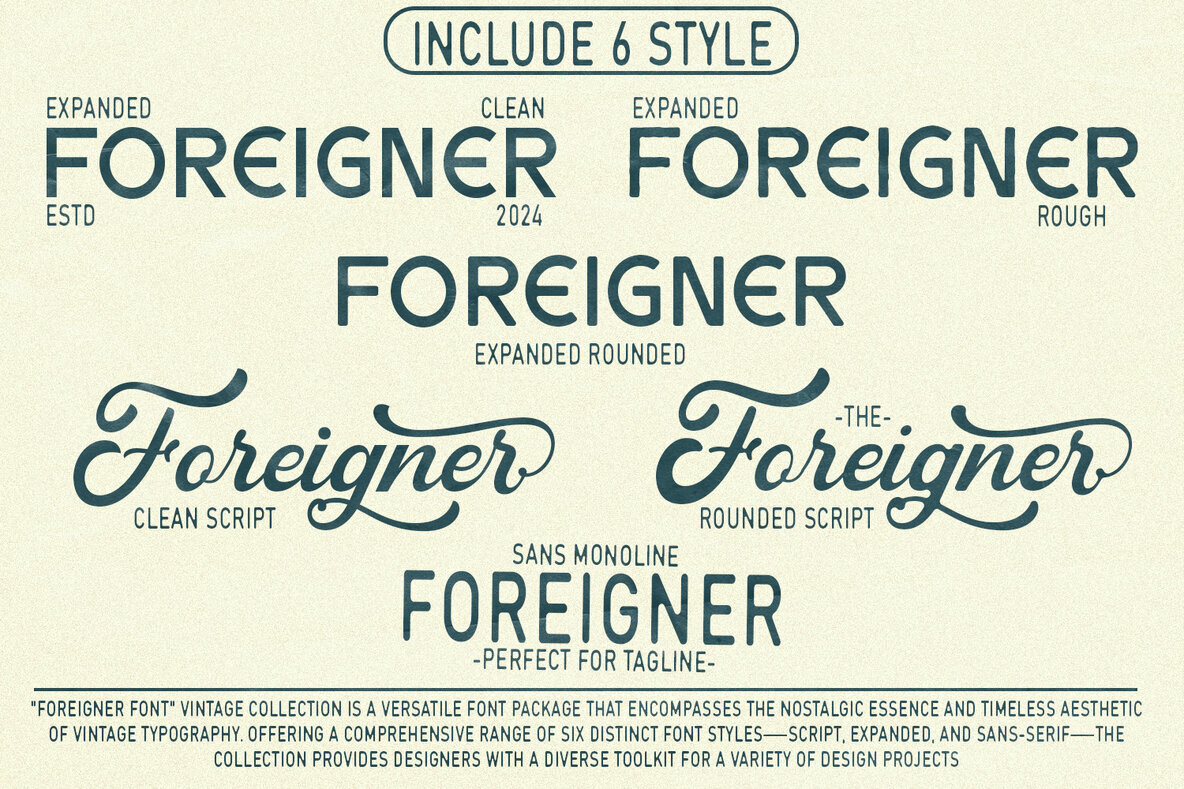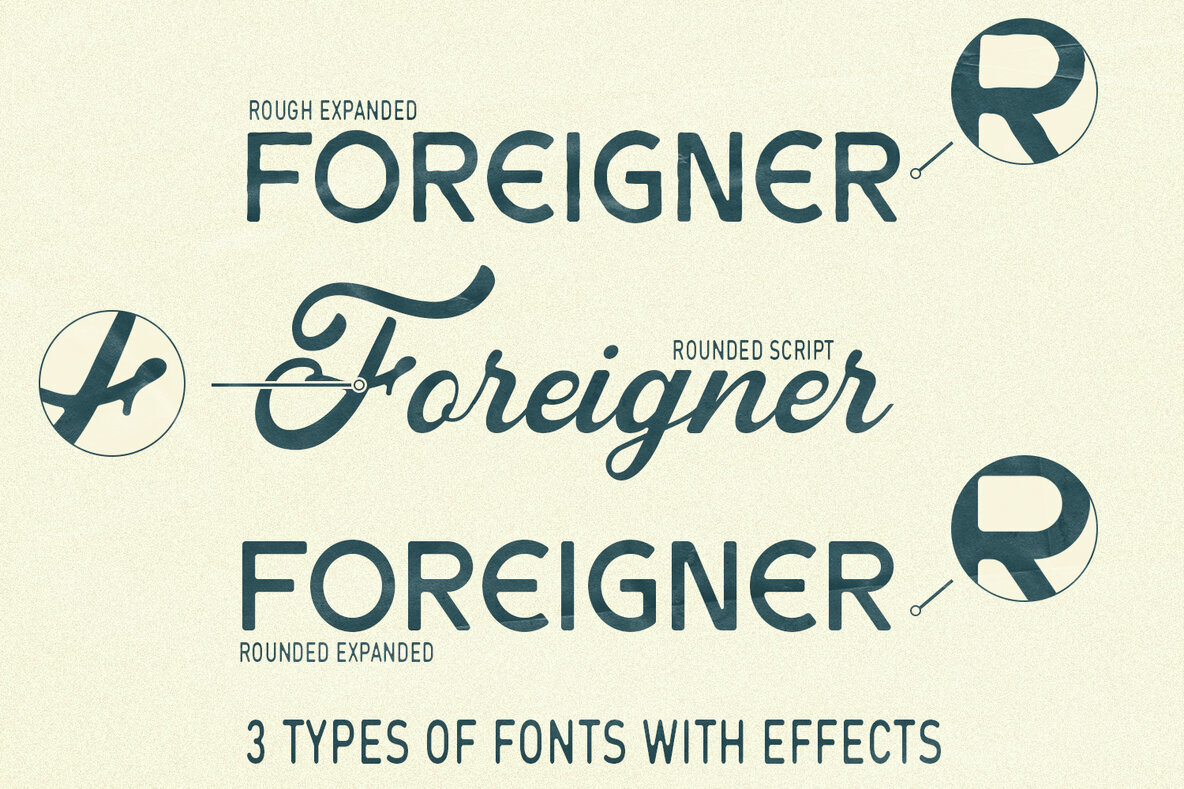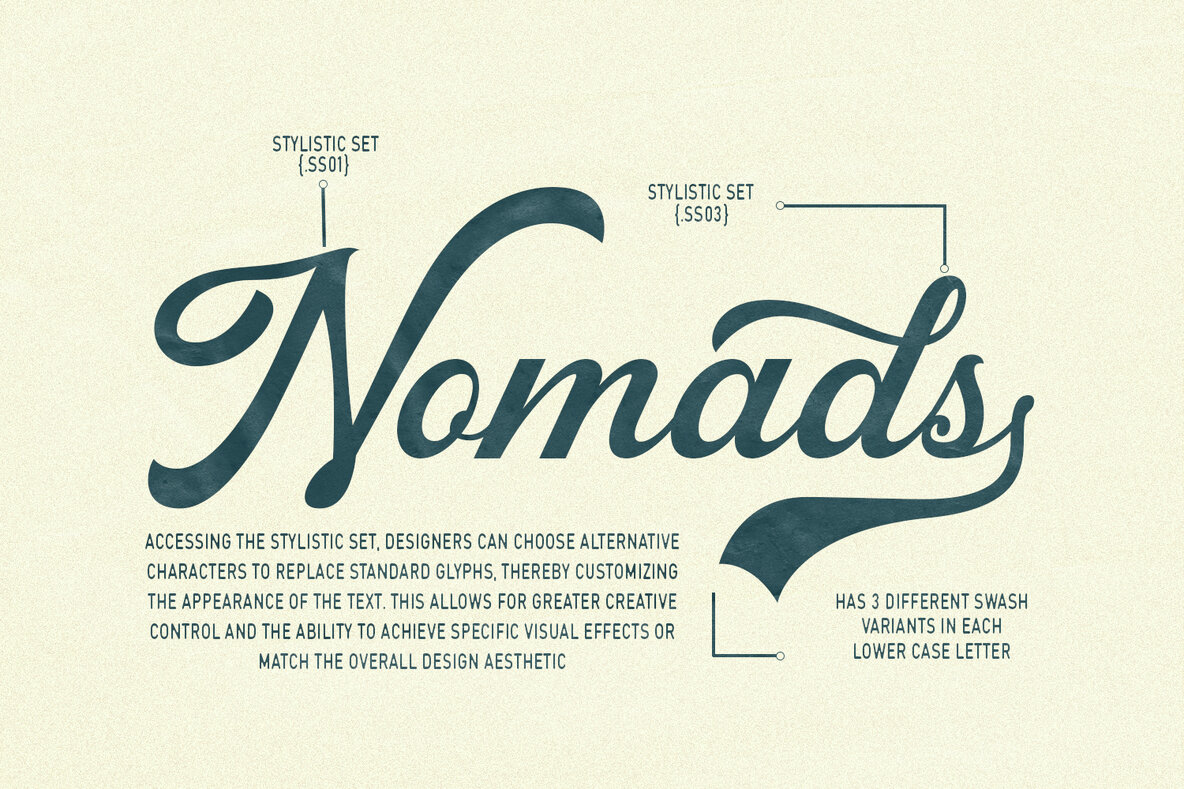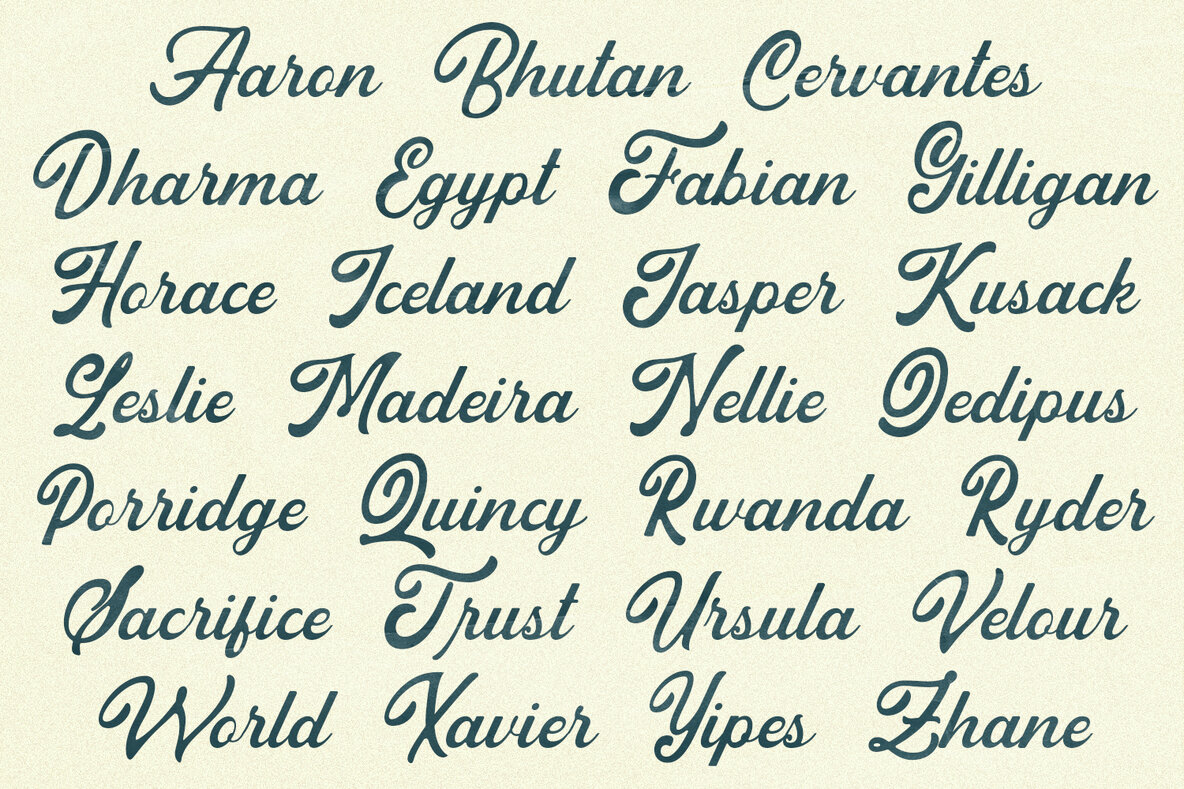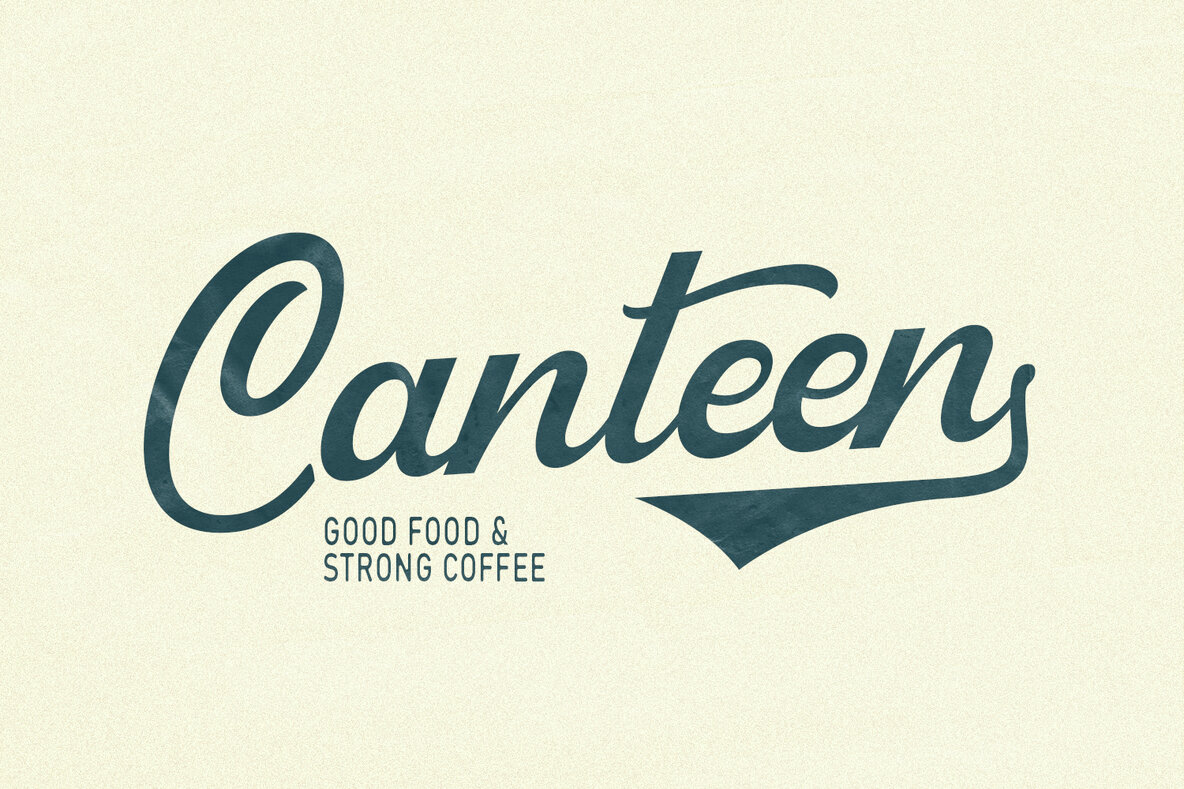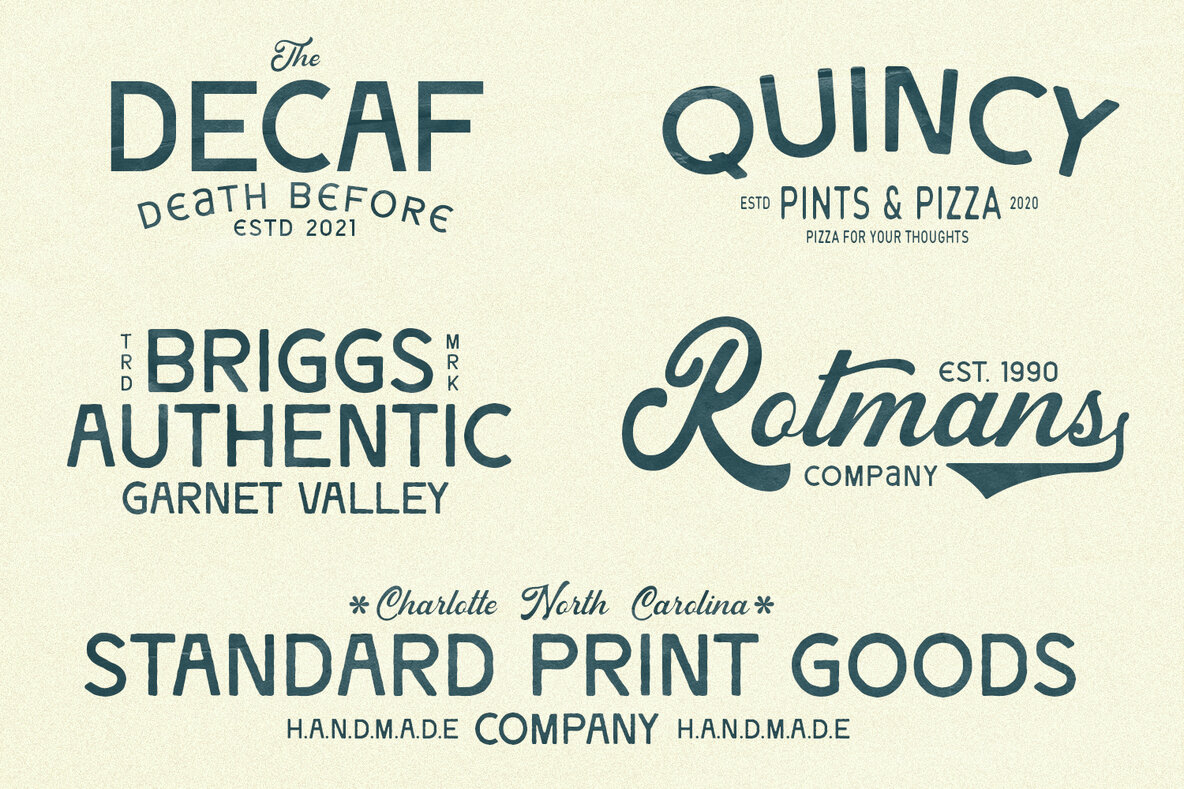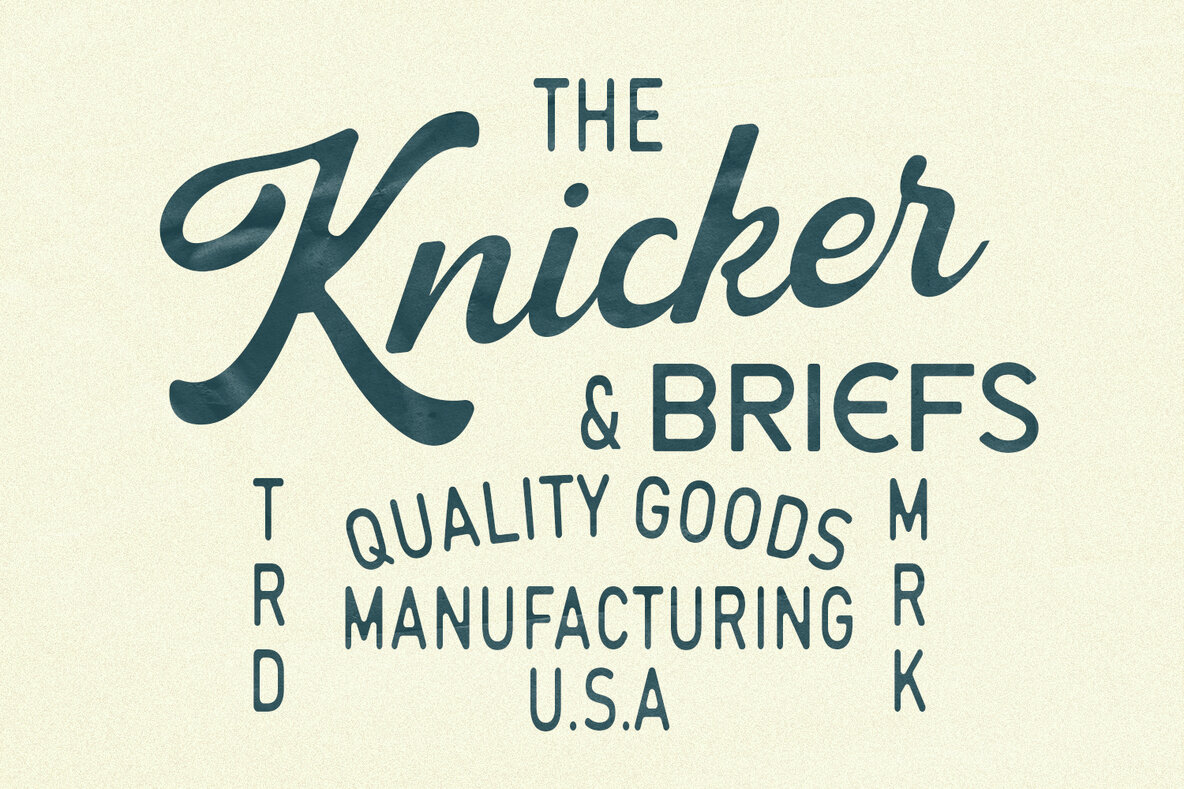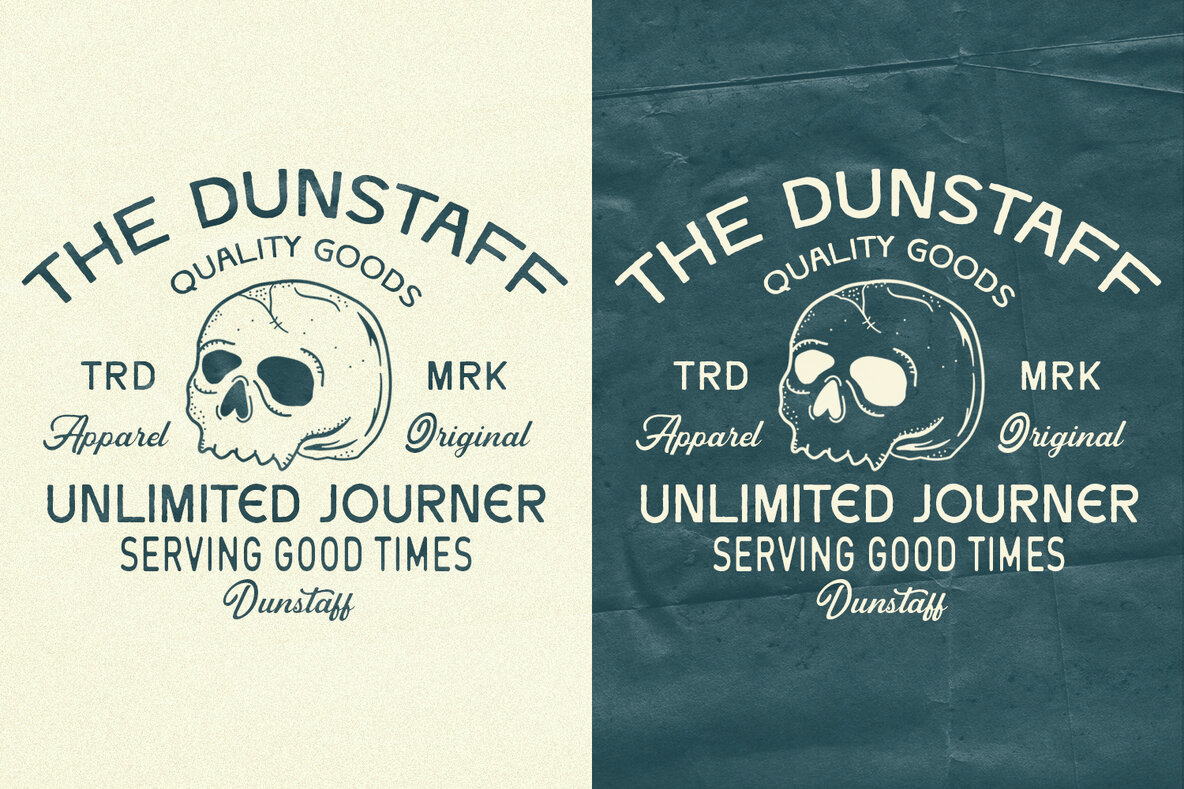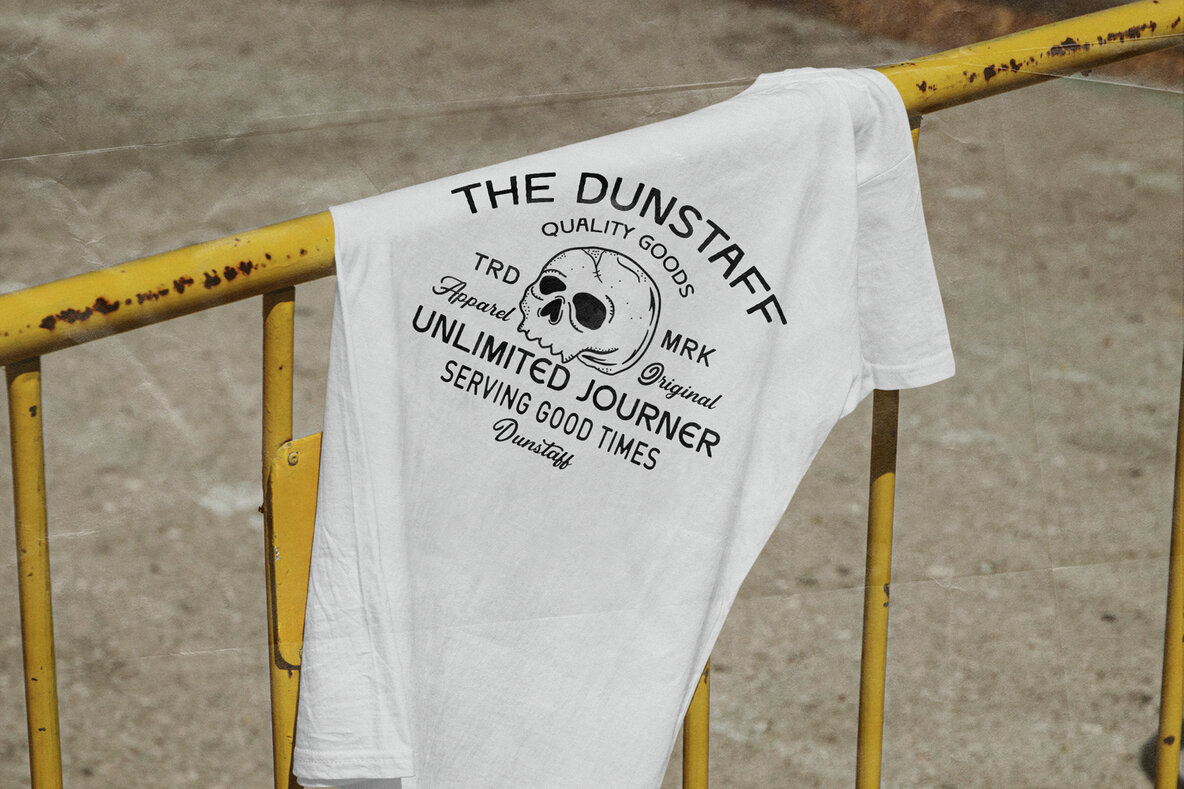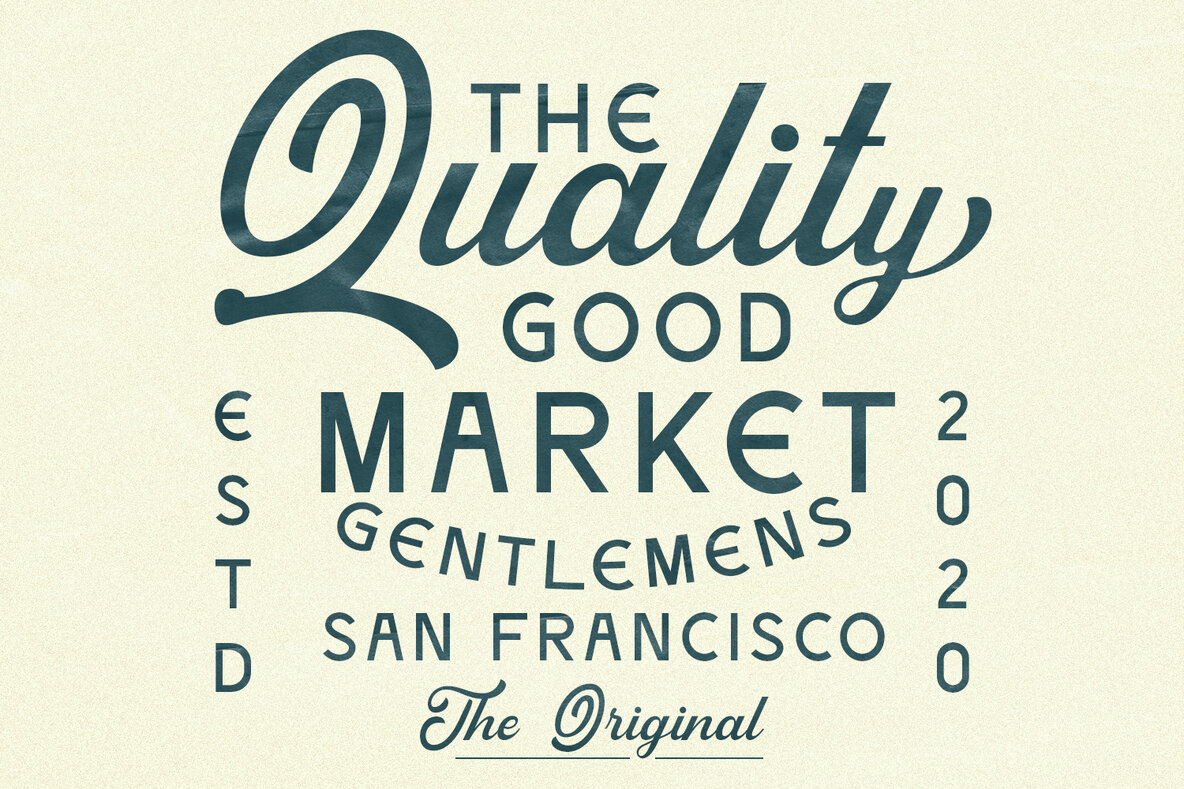
Foreigner Font
The Foreigner Font Vintage Collection channels the nostalgic spirit and enduring aesthetic of classic typography. This extensive font package features six distinct styles, including script, condensed, and sans-serif, offering a varied toolkit for creative projects. With its blend of timeless charm and professional robustness, the Foreigner Font Vintage Collection is an indispensable resource for designers looking to incorporate vintage elegance into their work.Foreigner Font Vintage Collection: Nostalgic Typography for Design Versatility